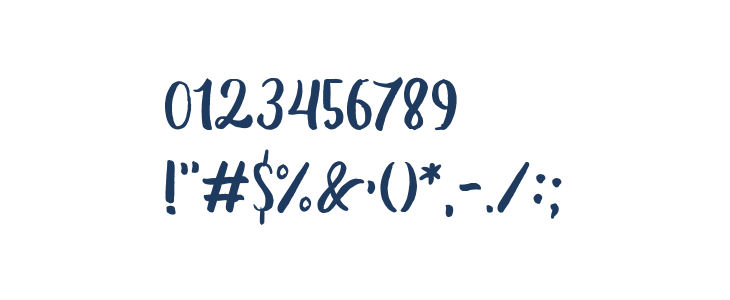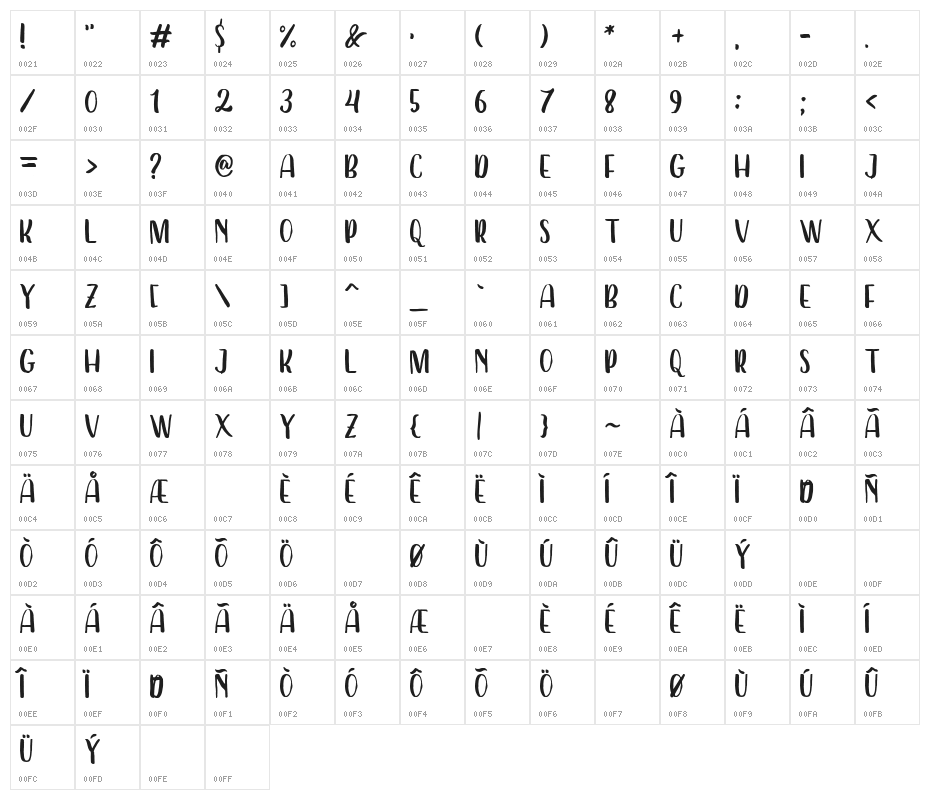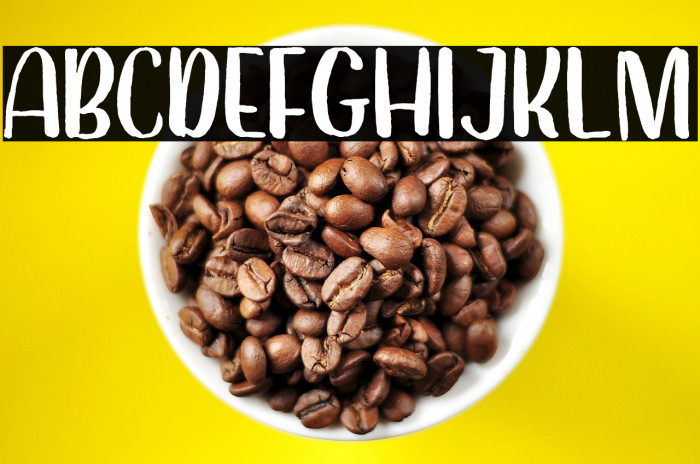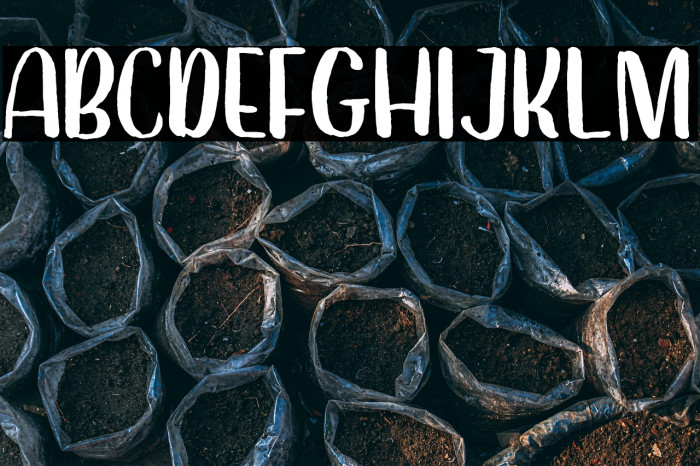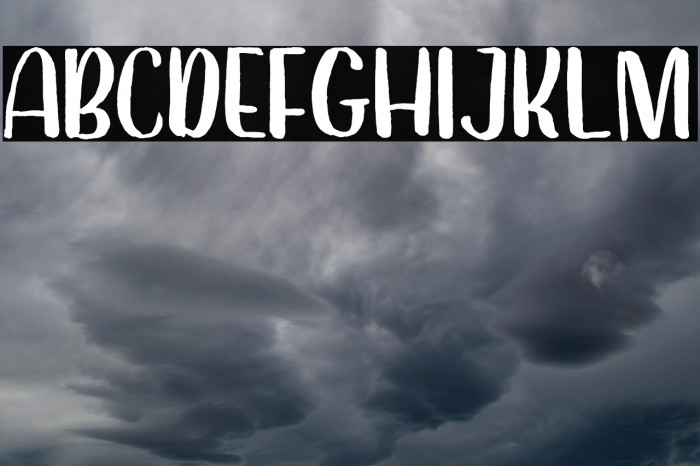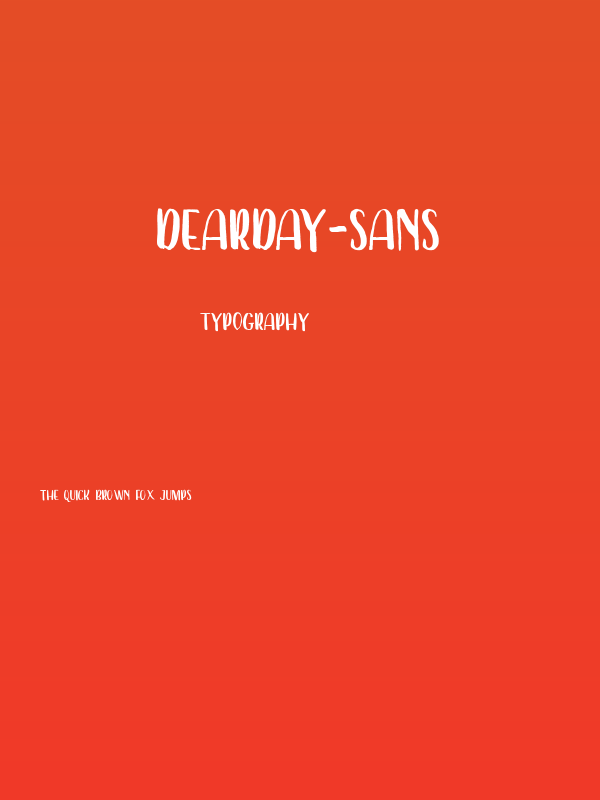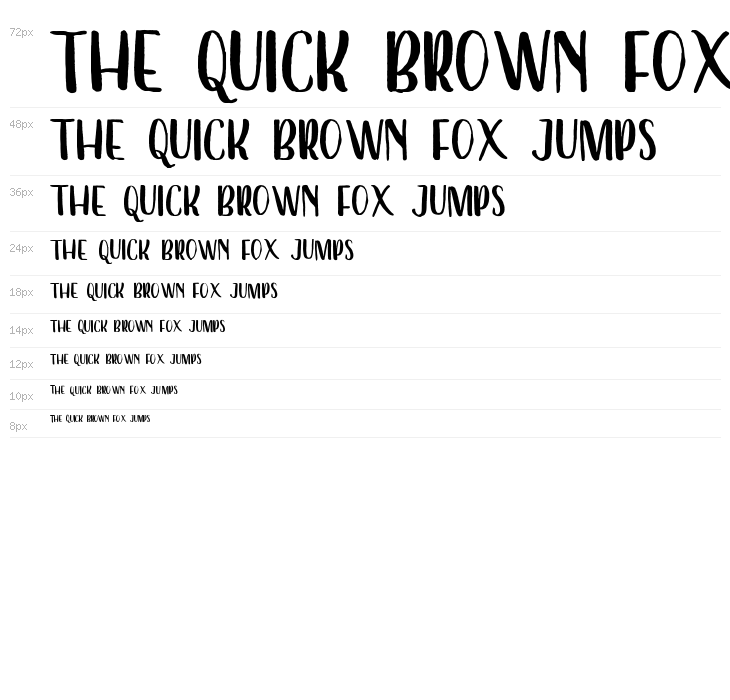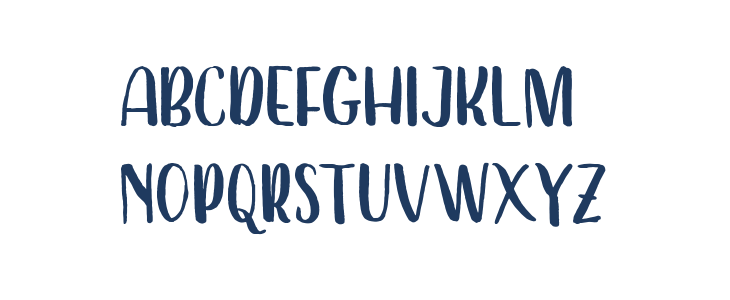
Dearday-Sans Font
Dearday-Sans Description
This font features a bold, handwritten style with a playful and artistic flair. The characters are slightly irregular, giving them a natural and organic appearance. The strokes are thick and consistent, providing a strong visual impact. This font includes both uppercase and lowercase letters, numerals, and a variety of special characters. Its dynamic and lively design makes it suitable for creative projects that require a personal touch. The font's unique style is both approachable and expressive, making it ideal for designs that aim to convey warmth and creativity.
| Proposed Projects | Ideal for greeting cards, posters, branding, and social media graphics. |